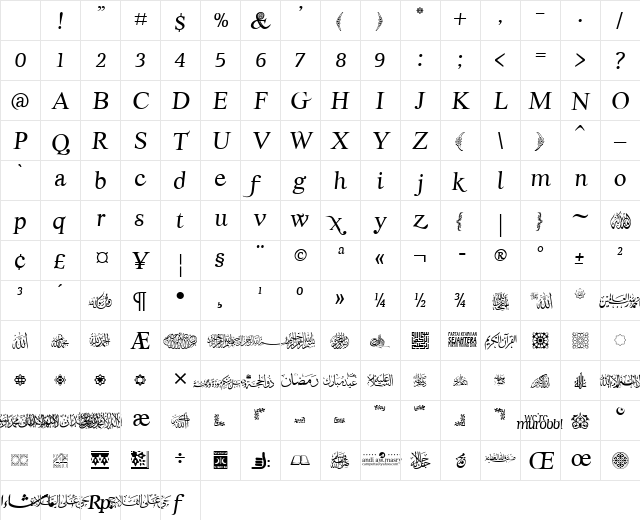
Complete pks-masry Italic glyph index. Displaying only characters natively supported by pks-masry Italic font.
pks-masry is a composed and adaptable typeface that performs quietly and consistently across a wide range of design contexts. The slanted form adds forward momentum and visual energy.
Pro Tip: Use pks-masry for emphasis, pull quotes, and subheadings where its slanted energy can add rhythm to the layout.